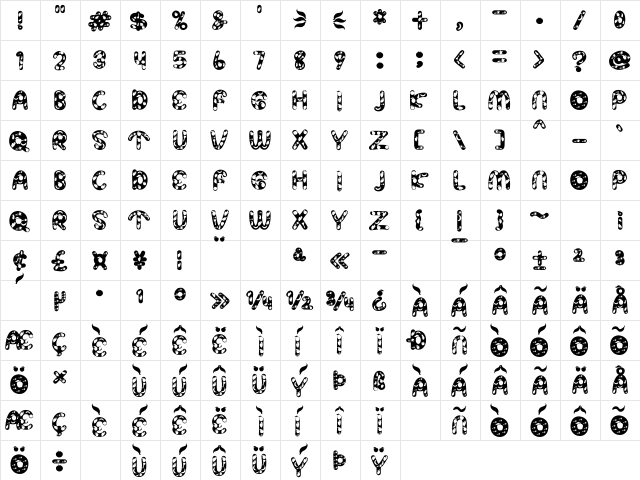
ASPARAGUS Regular
| Designer | Giwidodo |
Design Context for ASPARAGUS Typeface
ASPARAGUS is a composed and adaptable typeface that performs quietly and consistently across a wide range of design contexts.